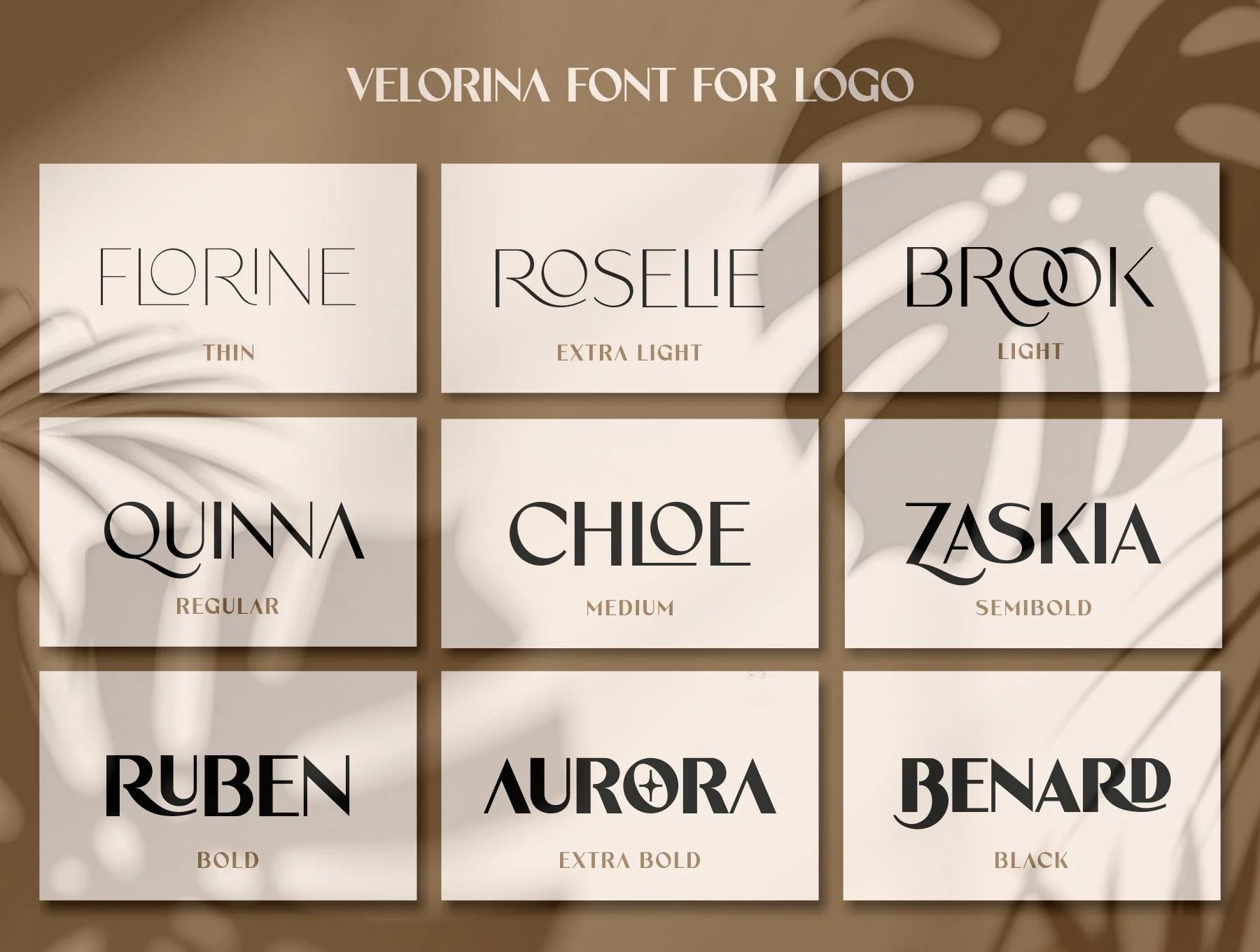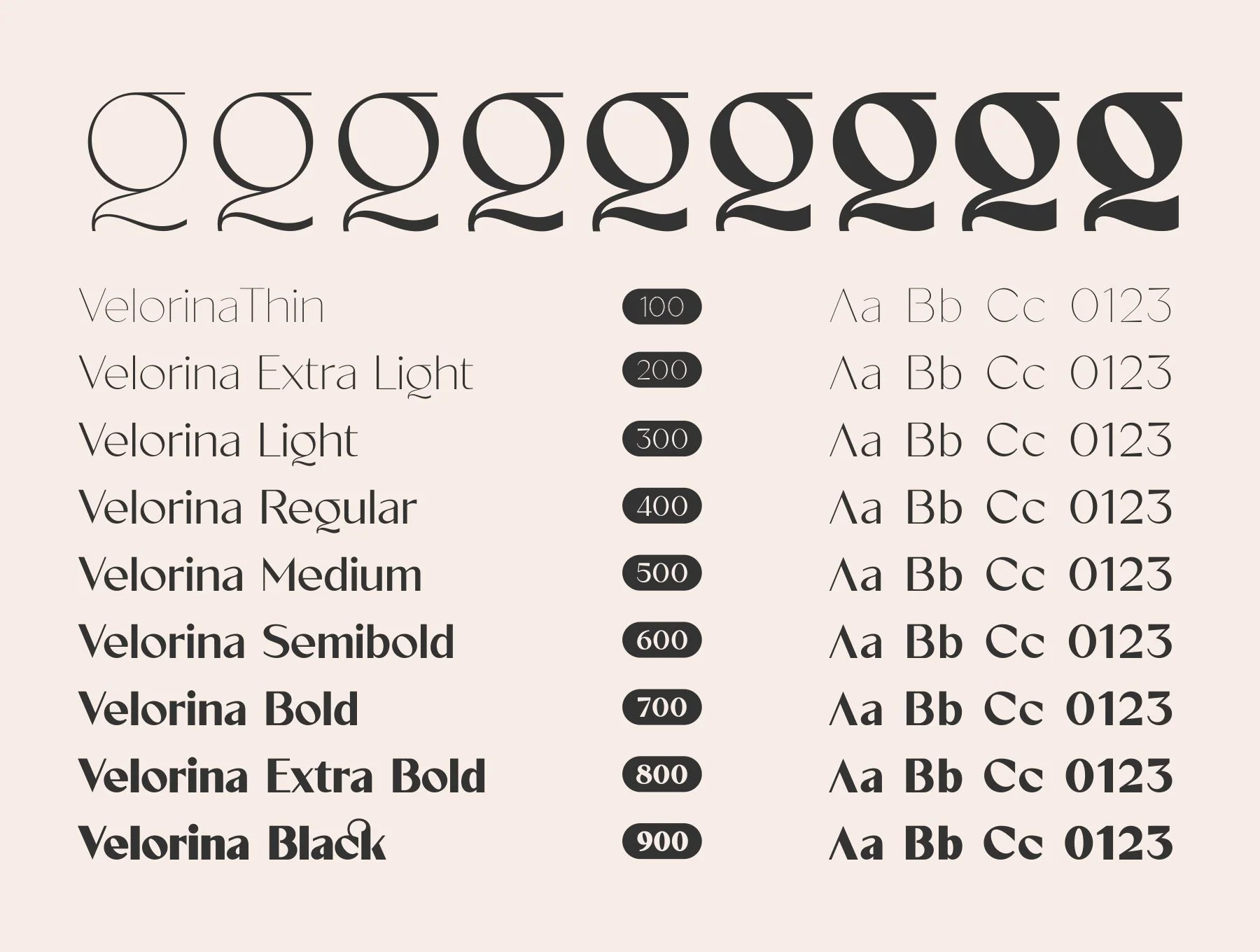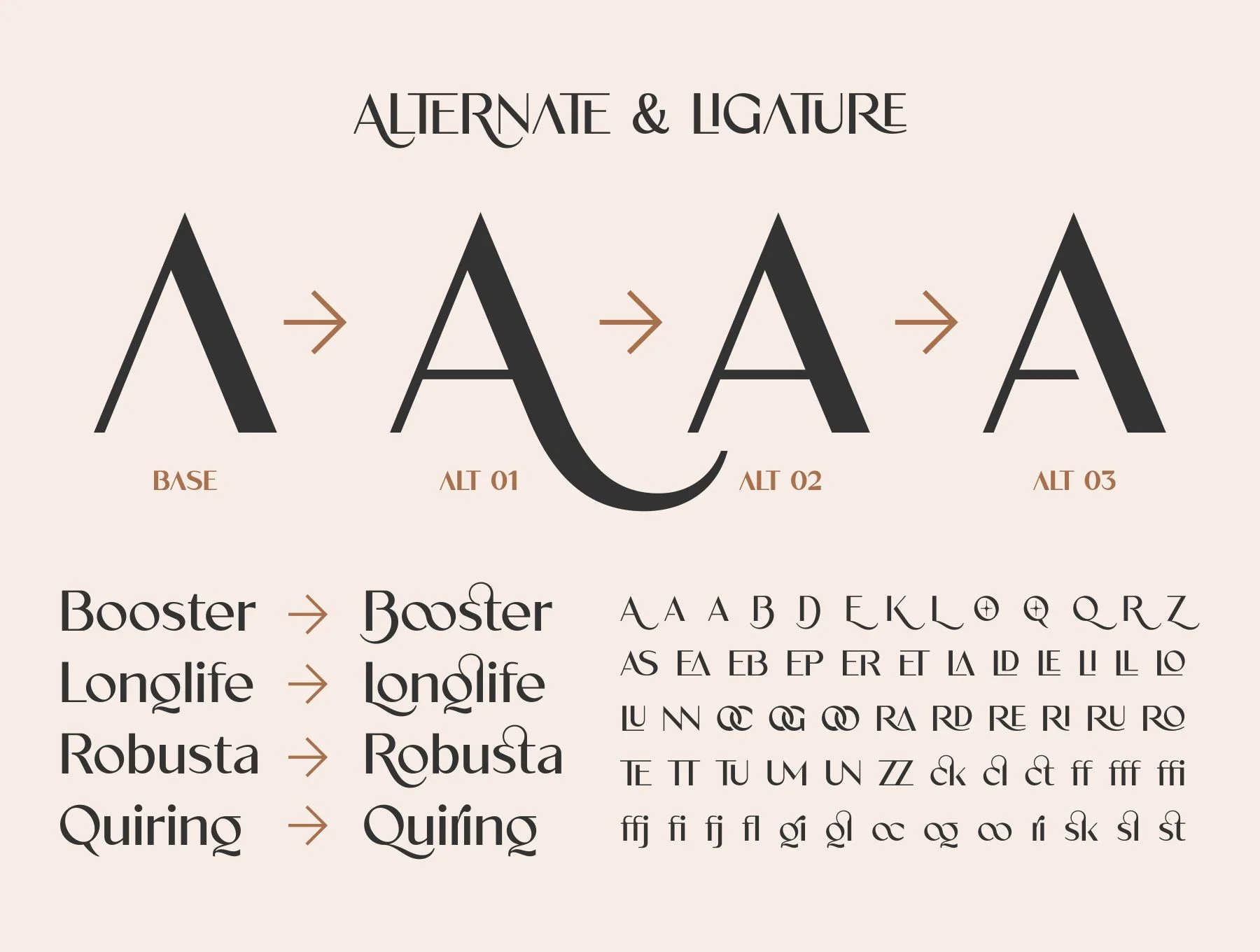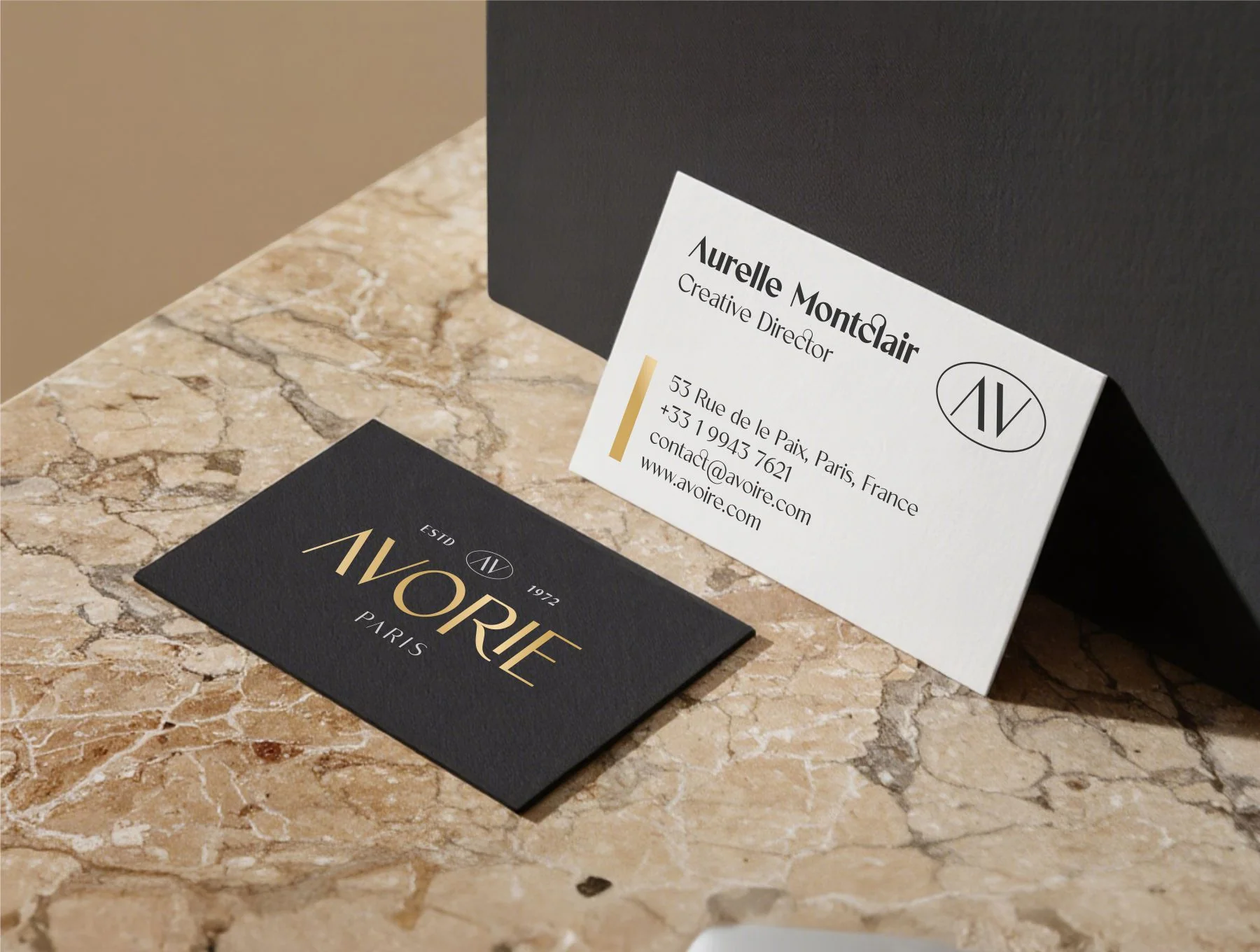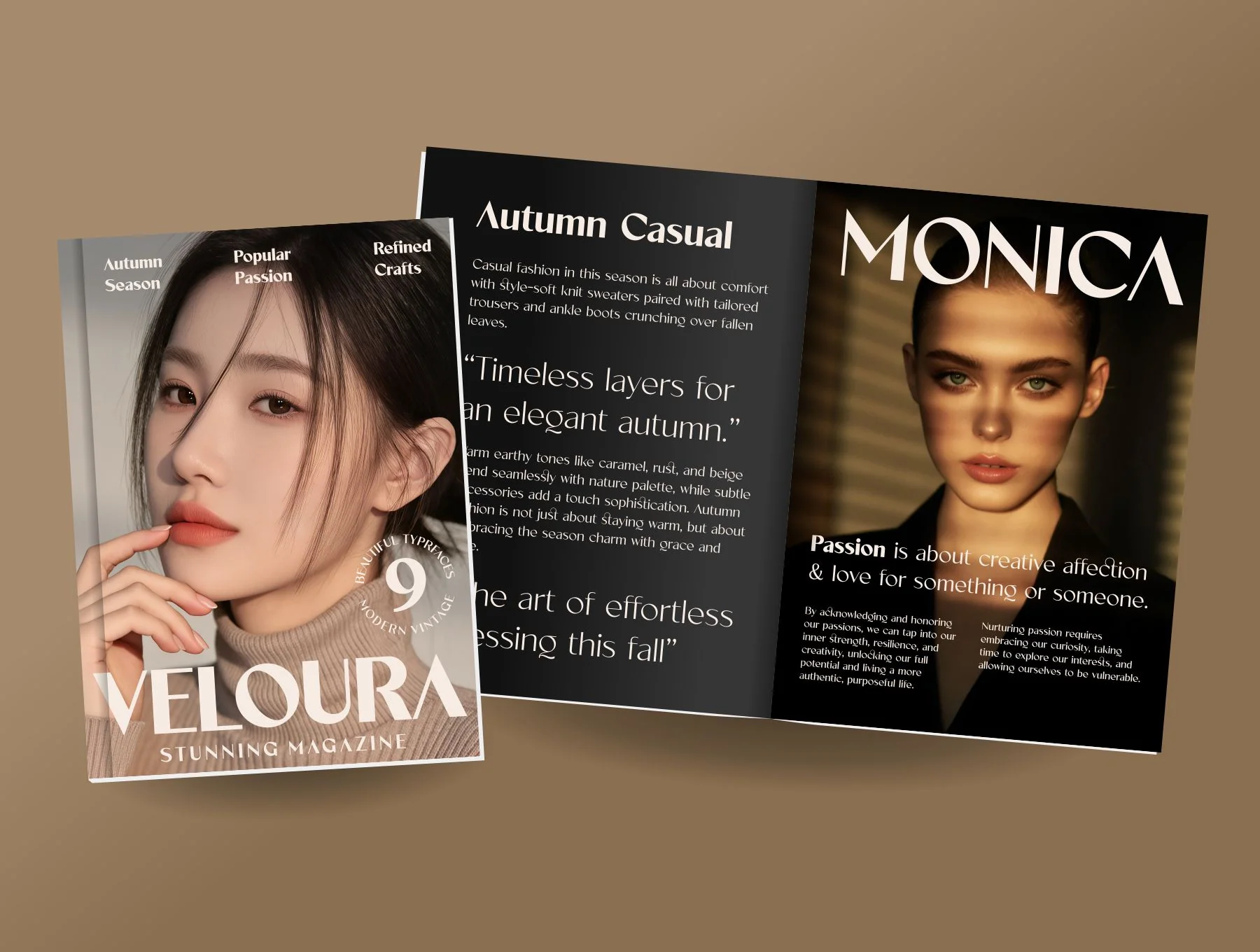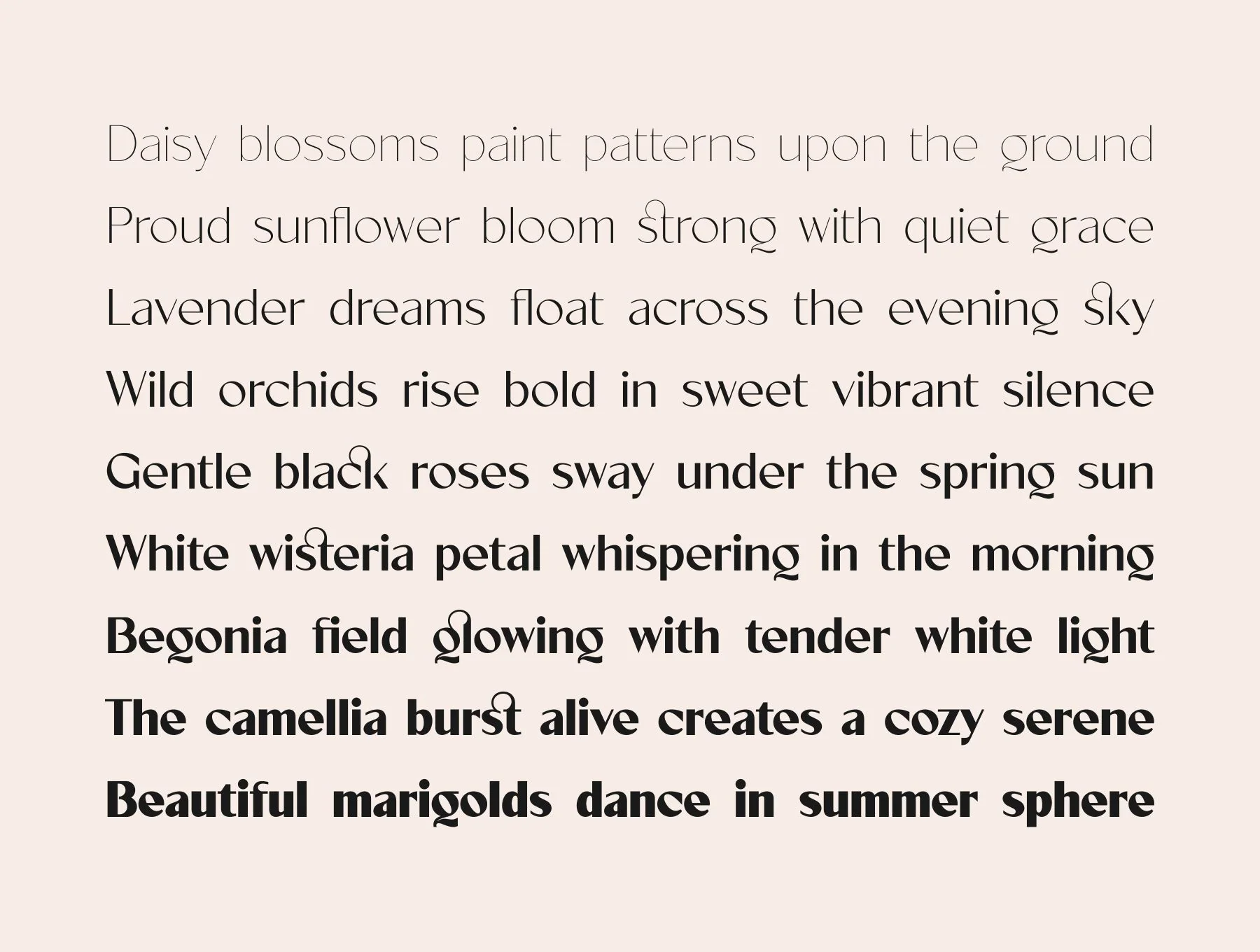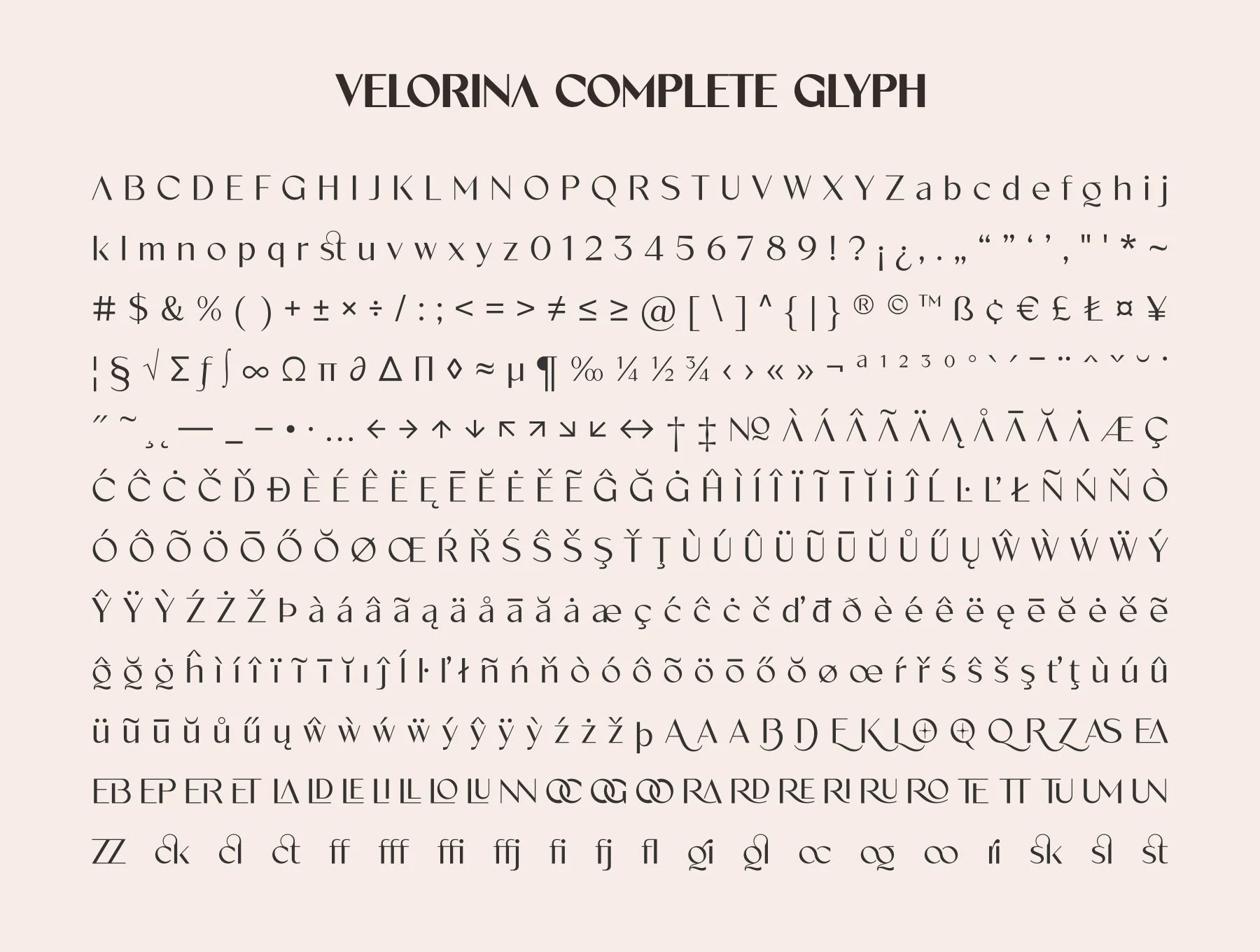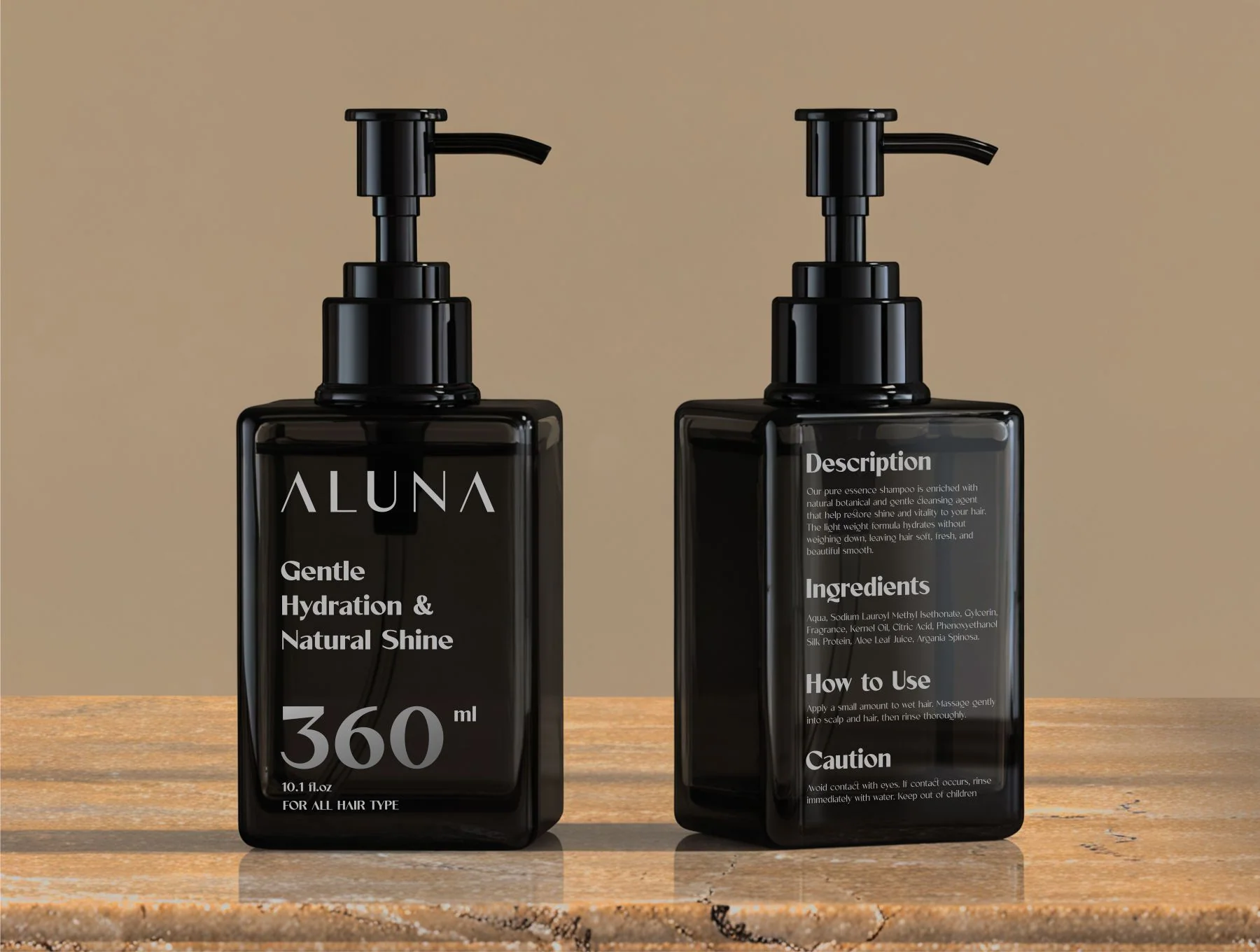
Velorina Font Family
Sleek, Minimal Typeface for Diverse Designs
Set of 9 typefaces
Ligatures and stylistic alternatives
Velorina is a sleek, contemporary font family with refined geometry and understated elegance. Its 9 weights span from fine Thin to strong Black, blending sans-serif clarity with delicate serif-like details. Ideal for branding, logos, editorials, and UI design. Includes OTF, TTF, WOFF, standard glyphs, alternates, ligatures, symbols, punctuation, and multilingual support.